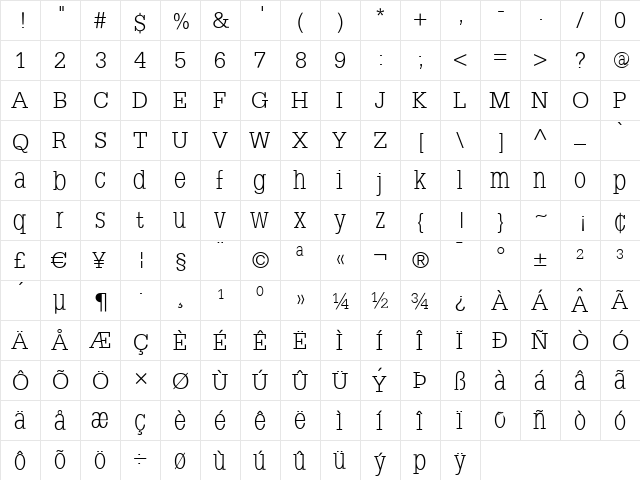
SlabserifXhigh Regular
Design Context for SlabserifXhigh Typeface
SlabserifXhigh features prominent, blocky serifs that give it a confident, grounded presence — equally at home in editorial settings and bold branding work.
Suited to magazines, political campaign materials, bold packaging, and any setting where authority matters.
Pro Tip: Use SlabserifXhigh for headlines and subheadings where its slab serifs can make an impression. It also holds up well in mid-size body copy thanks to its sturdy construction.